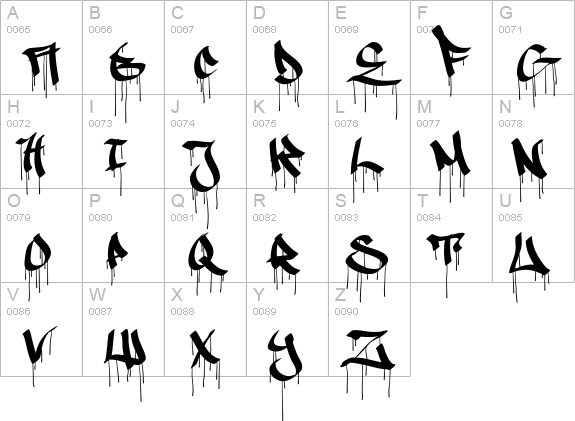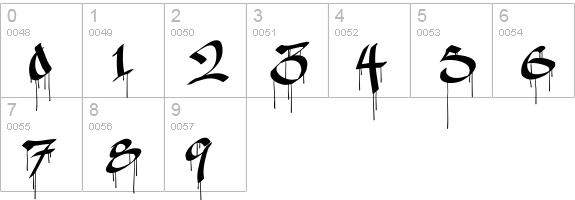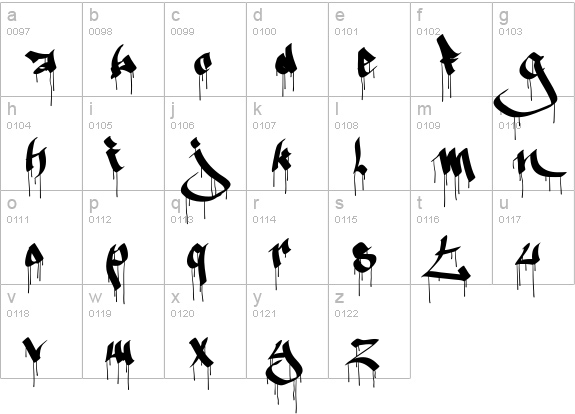
Ruthless Drippin ONE Font Details
Introducing Ruthless Drippin ONE, a font that combines edginess and elegance in the most captivating way. With its bold and daring strokes, this font is perfect for making a statement that demands attention. The sharp and distinct edges of each character exude confidence and power, creating a visual impact that is hard to ignore. Ruthless Drippin ONE is not just your ordinary font; it is a bold expression of individuality. Its unique design is reminiscent of graffiti art, adding a touch of urban flair to any project. Whether you're designing a logo, creating a poster, or crafting a social media post, this font will instantly elevate your work to new heights. What sets Ruthless Drippin ONE apart is its versatility. It effortlessly adapts to different design styles, making it suitable for a wide range of projects. Its clean lines and carefully crafted details ensure legibility, even at smaller sizes. This means that you can use it for both headlines and body text, allowing for a seamless and cohesive design. Best of all, Ruthless Drippin ONE is freely available to download at FontsMarket.com. Yes, you read that right - it's completely free! Now, you can add this stunning font to your collection without any cost. FontsMarket.com is a trusted source for high-quality fonts, ensuring that you can always find the perfect typeface for your creative endeavors. So, why wait? Unleash your creativity and make a bold statement with Ruthless Drippin ONE. Download it now from FontsMarket.com and let your designs speak volumes with its powerful and captivating presence.